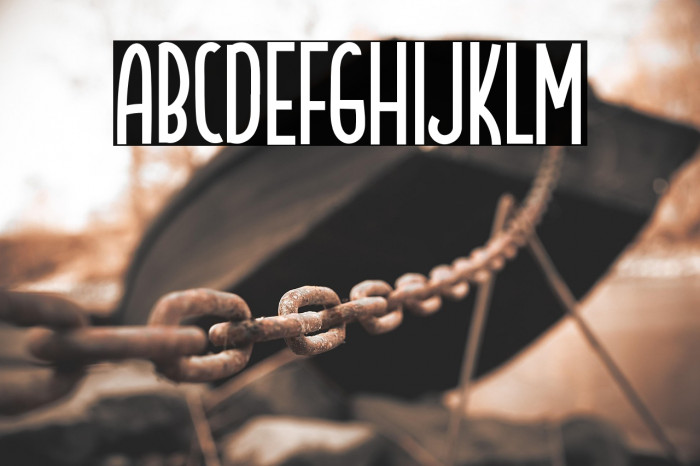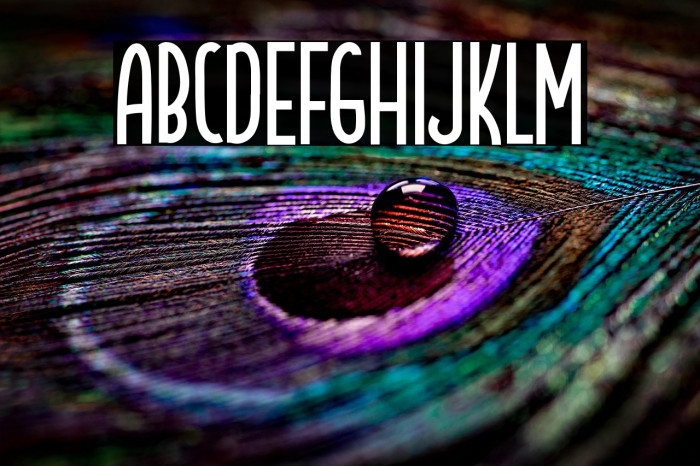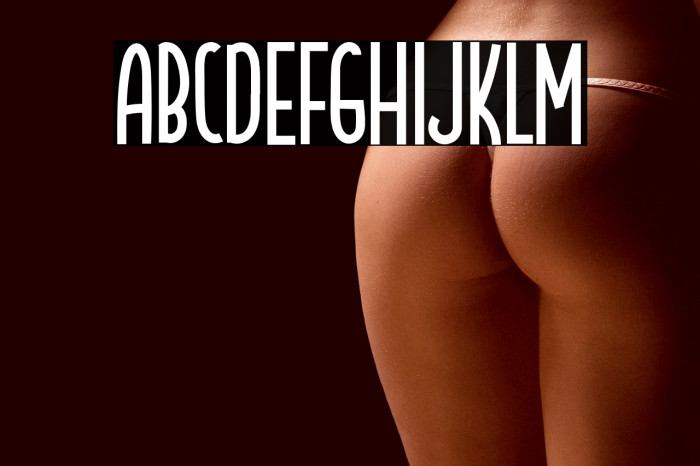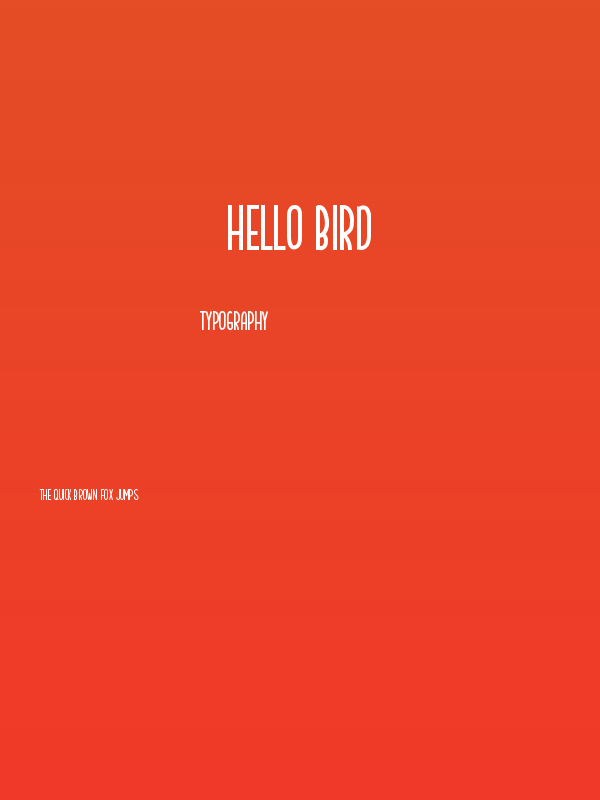
Hello Bird Font
Hello Bird Description
This font features a tall and narrow design with clean, straight lines and slightly rounded edges, giving it a modern and approachable feel. The uppercase letters are uniform in height, while the lowercase letters maintain a consistent style, enhancing readability. The numbers are distinct and align well with the overall aesthetic, ensuring clarity in numerical displays. Special characters are well-integrated, maintaining the font's cohesive look. The overall style is sleek and contemporary, making it suitable for a variety of design applications.
| Proposed Projects | Ideal for branding, posters, headlines, and modern web design projects. |